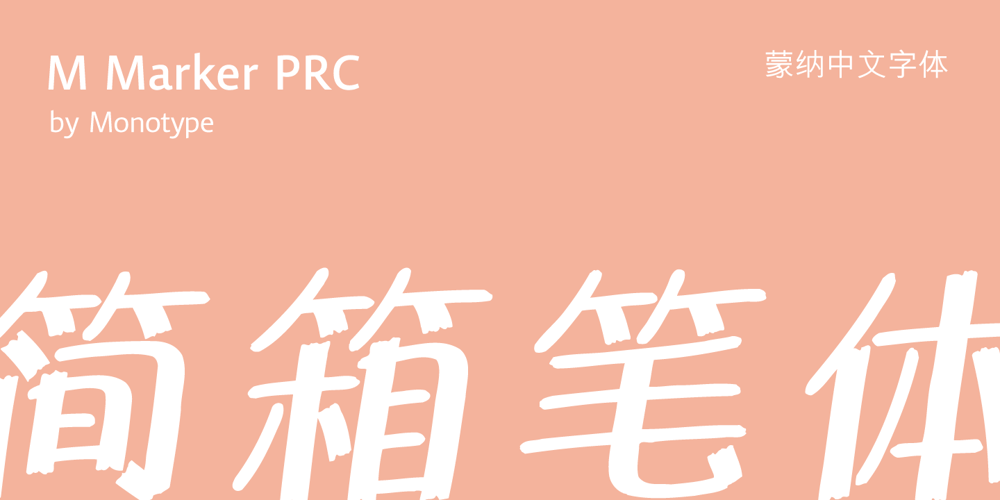
M Marker PRC
M Marker PRC font
M Marker PRC Font Family was designed by Monotype HK Design and published by Monotype HK. M Marker PRC contains 1 styles and family package options. M Marker is a humanistic script design characterised by its italic, modern, box marker pen-like style. M Marker incorporates features of carton box marker pen, its strokes beginning and ending are rough, parallel without flare. Contrast of strokes is high. Its extra bold stems (豎) make it suitable for large display text to catch attention. Crossbars (橫) and stems (豎) are straight but slanted while angles (折) are smooth and well rounded. Dots (點), ticks (剔), hooks (勾) and downstrokes (撇、捺) are irregular, smooth and long to create softness, liveliness. It is best suited for casual and lively display, illustrations, set upright (naturally slanted), non-condensed.